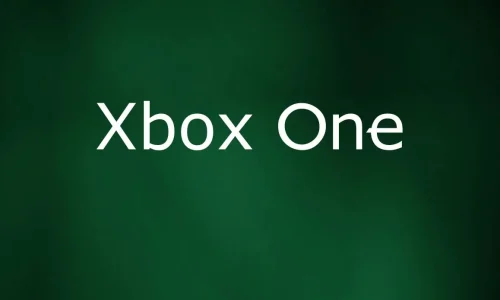
Here is another exciting and attractive font called the Glober font. This attractive font was designed and released by one of the famous typeface foundry named Fontfabric. This font has a very beautiful neat and clean design.
This typeface contains all types of glyphs including lowercase, uppercase, symbols, etc. It also supports up to 110+ languages.
This typeface has that type of texture design which can be useful for most types of designing work. Maven Pro Font will be a good choice to pair it with this font.
| Name | Glober Font |
| Designer | Fontfabric |
| Type | Sans Serif |